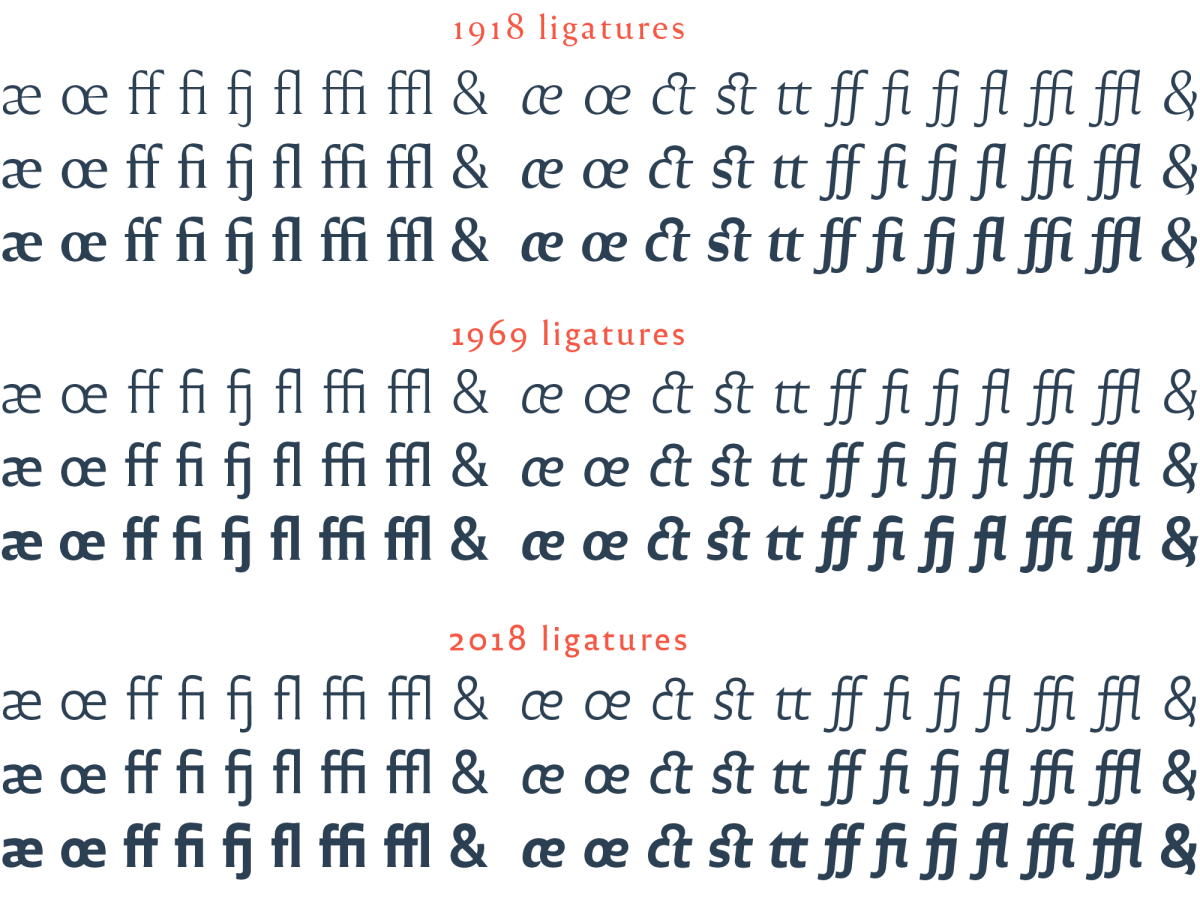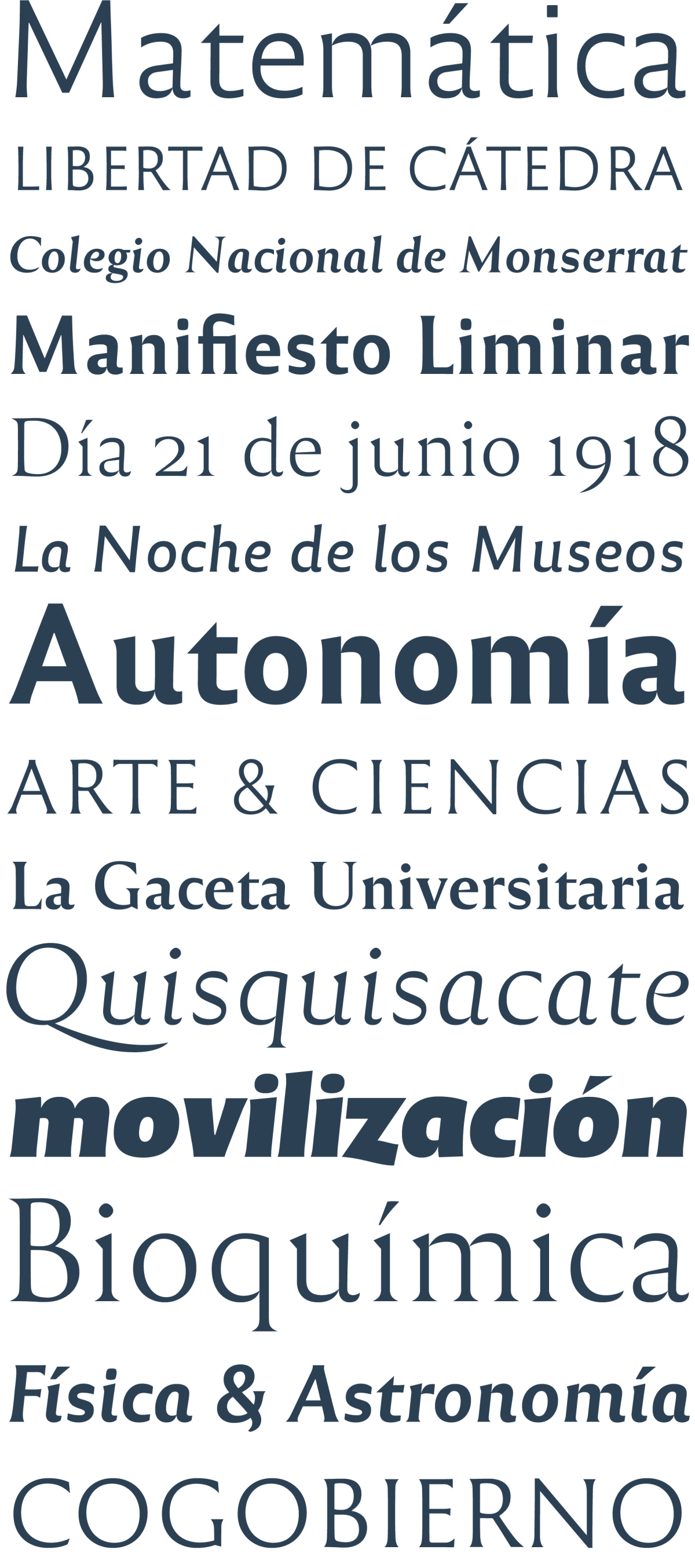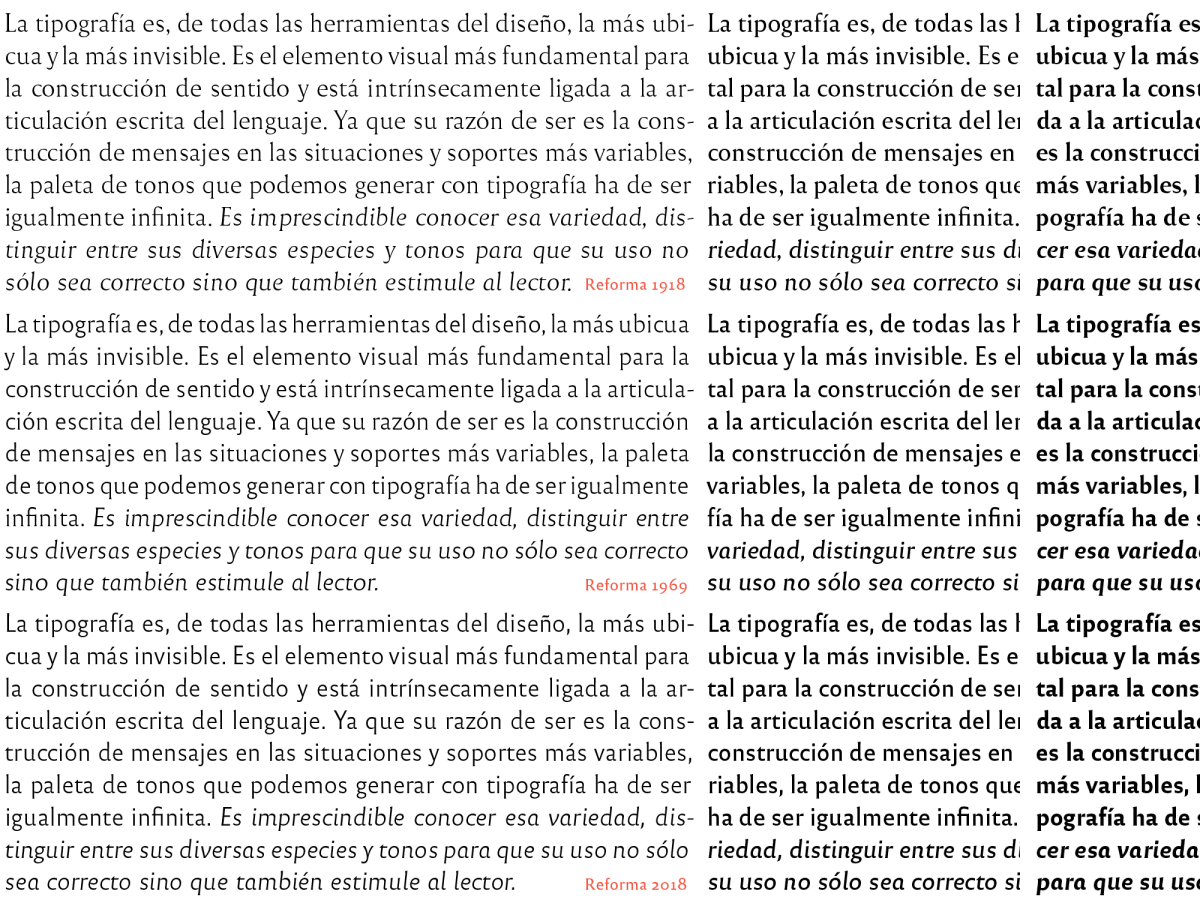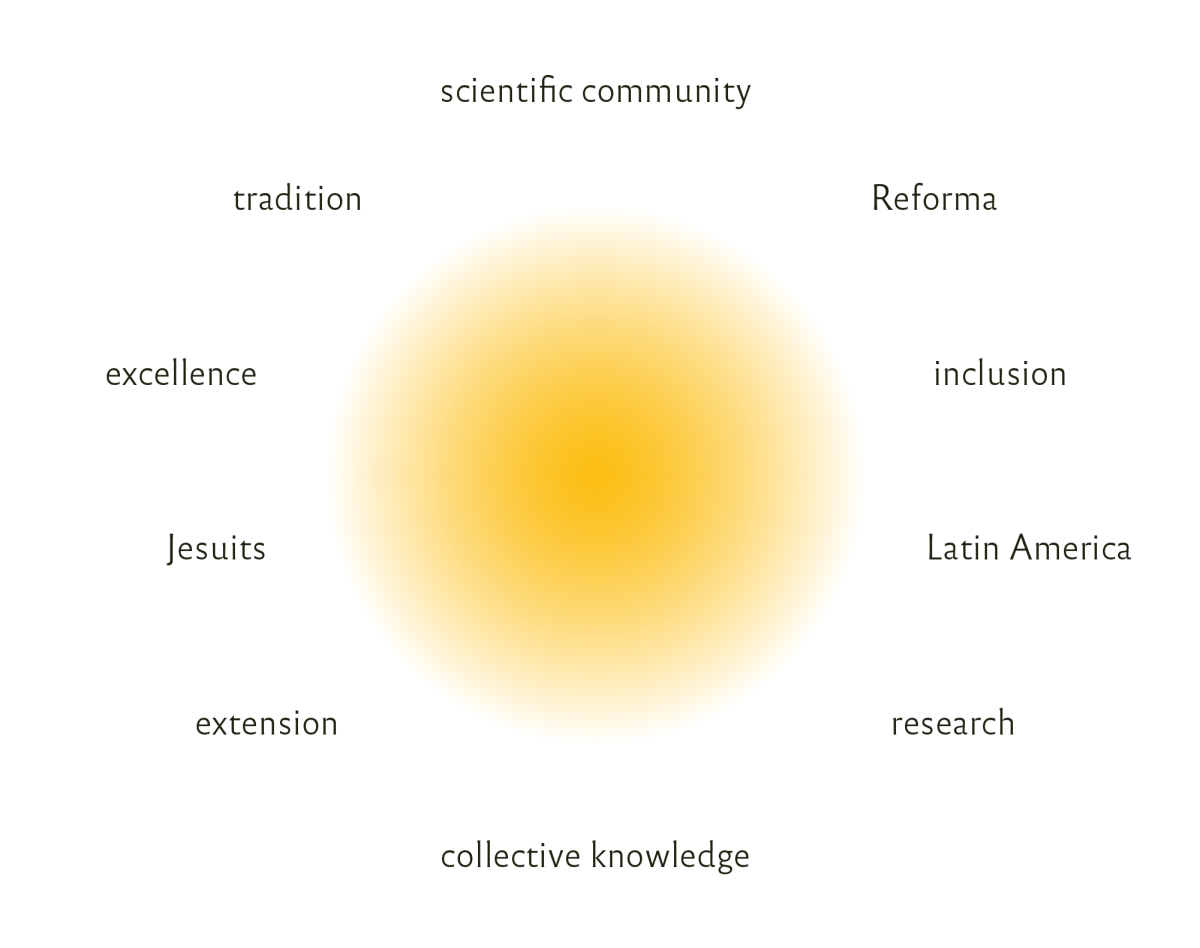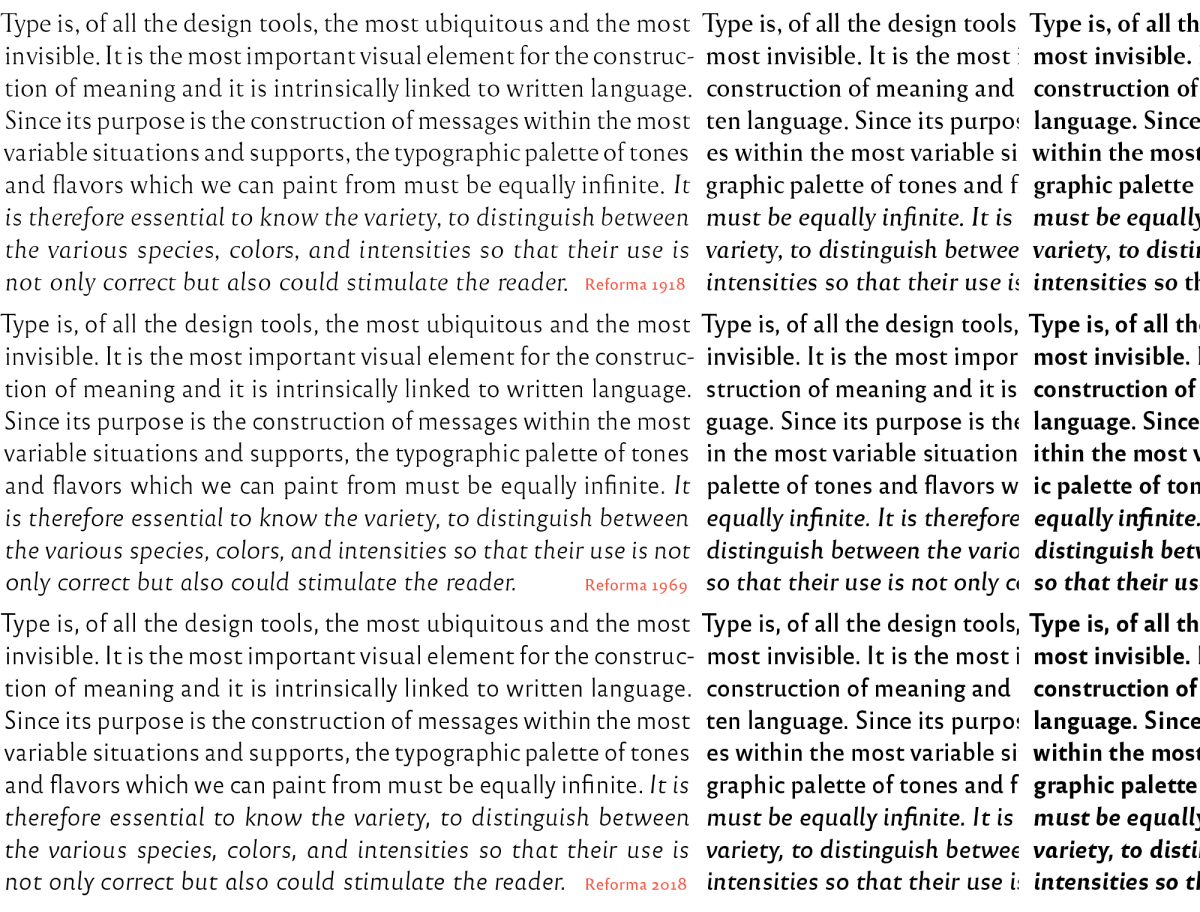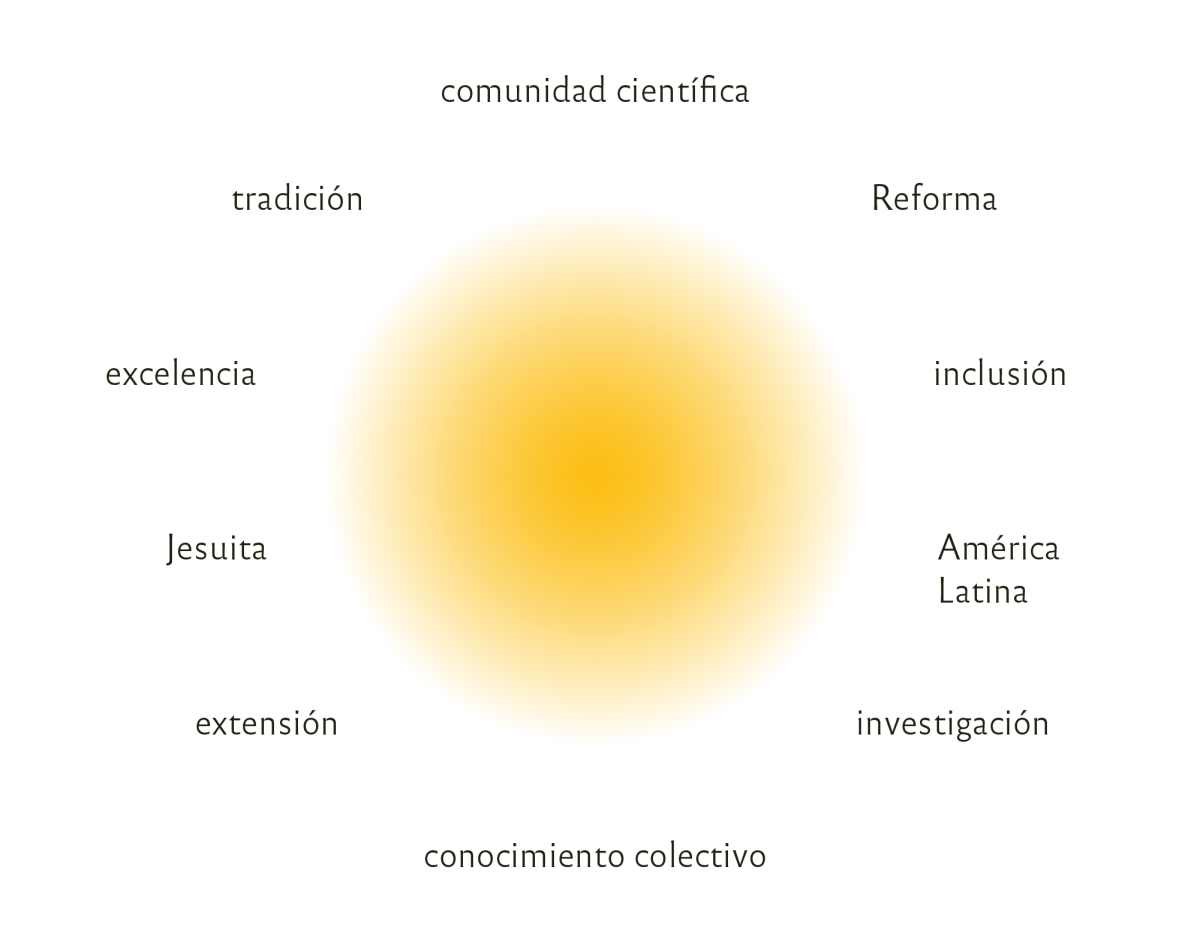
Reforma. A new voice for an institution with deep roots
We are proud of this project: The design of a typeface for the Universidad Nacional de Córdoba in Argentina, an educational institution of more than 400 years, the first in the country and one of the earliest in the continent. As part of the celebration for the hundred years of the University Reform, which occurred in this house in 1918, the UNC commissioned PampaType the design of a typeface to address their multiple communication needs. The resulting design, ‘Reforma’, is a multi-form family with diverse styles. In this article we share a bit of context, all the design process, some of our drawings and production details, and a few insights harvested throughout this 3-year fruitful experience.
Pabellón Argentina, one of the major university buildings in the central campus of the UNC.
Introduction
Emblematic picture from the times of the Reforma, 1918, Córdoba, Argentina.
The Universidad Nacional de Córdoba is an institution with deep roots. At its origin, more than four centuries ago, one finds the Jesuit enthusiasm fighting with the Pope for serious differences in how to interact with the souls of the ‘New continent’. The Jesuits were finally expelled from the Americas by the Spanish king in 1767, but their work remain for some a precedent of peaceful and constructive coexistence. In 1918 rebel students of the UNC gave birth to the Reforma Universitaria, an event that would change the history of higher education throughout the continent. Since then students, teachers and university personnel take part in the government of the house, thus putting an end to the usual authoritarianism.
In 2015 the design department from institutional communication at UNC called us to discuss the possibility of a proprietary typeface for the house. Pretty flattered, we placed hands at work. Three years later the Reforma type family sees the light.
Following the spirit of celebration that has guided this iniciative, as well as the Argentinean traditional policy of open, public, and free education, «sharing» has been the cornerstone of this project. This article is written a few steps before the actual release of the fonts. We hope the project meets public acceptance and as the fonts are widely spread users feel satisfied with them.
A bit of context
Argentineans are proud of their relative intellectual independency and their sense of irreverence, which probably track back to the old Gauchos and their rebel attitude: They could not belong to a sacred land whose natives have been blindly extincted, nor they could embrace the desperate promises offered by hungry settlers. This struggle between memory and forgetness, perhaps inherently human, go throughout all our history and go across our national expectations. We are people of contrast. And because of our recent history we have a strong conscience about our own rights. 1
Public education values
Certain awareness of independence as something you have to struggle for set up a scenario for a slow consolidation of a public, laic, free education policy, as the means to guarantee people’s literacy and their chance for a future. Public education is thus motive for pride in this country. It is the opportunity for all, wealthy or vulnerable, to access higher education, providing them a sense of belonging to a community where justice and equal opportunities excel, where diversity of thoughts is welcome, where one can acquire or consolidate a scale of values. 2
From this perspective we faced the development of a typeface for the Universidad Nacional de Córdoba, trying to convey into the design the nature of these values.
Design commission
The graphic designers of the institutional communication office conform a small department with intense activity, a big output, and a broad influence on the university communication. They are aware of the importance of type as a tool of daily use, and they were enthusiastic agents across the design process of Reforma, facilitating the dialogue with authorities and contributing to the acceptance of the project.
The brief included a few keywords that became the foundations of the project.
The new typeface had to convey four premises wich became the conceptual keywords of the project:
– 1. Plurality
– 2. Intellectual heritage
– 3. Versatility
– 4. Free availability
1. Plurality
The word ‘university’ comes from the Latin voice universus meaning ‘whole, entire’. The acceptance of multiple voices, that is ‘plurality’, is a quintessential value to democracy, and moreover to the life of an educational institution. All the opinions shall be respected and taken into account. We thought this value should be expressed through the articulation of, not a single style, but a family of different styles. This in turn helped us address another design premise: versatility.
Reforma is a multiform typeface that includes diverse voices grouped into three main styles, described in detail below.
Among the several libraries of the UNC [more info at https://goo.gl/L6gATT], there is a special collection library with prominent books and old manuscripts.
2. Intellectual heritage
In order to convey a historic protagonism of four centuries, we suggested that the design should evoke qualities such as dignity, sobriety, and authority. However some people in the UNC feared that this «authority» feeling could not represent the current university life of nowadays, identified with a democratic practice, social knowledge, horizontal exchange, and equal opportunities. Therefore, we set out to make an effort in the interpretation of classic Roman letterforms, sober and dignified, with a sense of true friendliness.
We tried to reach dignified letterforms, inspired in the Roman epigraphic tradition, though we drawed them with delicate, sinuous curves.
We usually see ancient inscriptions unpainted but in fact they did not look like this one at the time. The discovery of ink pigments inside letters suggested researchers not only that letters were painted after they were carved, but also that, before carving, a calligrapher would write the message using brush and ink. Only once the text was perfect then the carver would proceed to engrave. 3
Roman epigraphic artists painted inside the letters, most times in red ‘ignium’. Actually that was the reason for carving the letters. Unlike a simple painted letter, a carved letter protected the ink [the reading] much longer. This sample inscription belongs to the epigraphic collection at the Museé des Augustins, Toulouse, France. Photo: ALC.
3. Versatility
In order to face a wide variety of applications, in the sense of supports (transferring methods, printing technics, screens) as well as tones (style voices, reading atmospheres) we aimed at a multi-style family. Thus Reforma is composed of three subfamilies from classic serif to modern sanserif, all three adaptings finely –we hope– to a wide range of bodies from display to immersive text.
4. Free availability
In line with the policy of national education in Argentina: public, open, and free, the typeface Reforma designed for the UNC shall be freely available as free fonts under a Creative Commons license that allows for any sort of use, private or profesional, except the modification of the original design.
The design of Reforma
From the beginning the idea was to get a skeleton that could embody different muscles modulations. Therefore a wide range of type styles, with or without strokes contrast, with or without serifs, could be reached by basing on the same spirit. That way we could tackle versatility and diversity at the same time.
A series of early pencil sketches trying to figure out styles.
Following the decision towards styles of letterforms that could embody dignity, authority, sobriety, our natural choice favored the Roman epigraphic majuscules, from which our lowercases evolved.
We plunged then into the Roman epigraphic letter to better understand its qualities and nuances. At the end of this article we include some reading references that seem fundamental to us. On one side is the long and important tradition in epigraphic inscriptions and on the other the interpretations that printers, designers and typographers have succesively made of them for printing. The so called «Trajan» majuscules [engraved at the base of the Trajan column in Rome] are probably the best known Roman capitals. However in the span of almost 1500 years of Roman Empire, hundreds of models succeeded. In his fundamental book The Origin of the Serif, father Edward Catich demonstrated that the employ of a flat tipped brush in the hands of Roman calligraphers originated not only the sophisticated modulation quintessence of Roman majuscules calligraphy, but also the characteristic tip endings of strokes designers call serifs.
‘The Origin of the Serif’ by Edward Catich, a true milestone in the history of lettering.
Left image, plaster reproduction of the Trajan inscription made by Edward Catich, showing the importance of painting inside the letters, as opposed to leave them unpainted.
According to Catich these are all the brush strokes that one should master before writing Trajan majuscules.
Balancing personality and serenity
Being both a letter artist and a sculptor, Eric Gill [image below] understood wisely the principles of stone carving. However we thought that our own interpretation of Roman epigraphy had to be less whimsical, avoiding disturbing caprices, and embracing a sense of balance and calm.
An engraved alphabet by Eric Gill: a very personal taste in epigraphic lettering. Note the ‘spicy’ details such as the long vertical serifs [c f r s]; the length and direction of extensions in cursives as well as in figures; the absence of terminal in the descender of y; the low position of the dot in i and j; the diagonal, nervous arm in r. Such details add uniqueness to the whole.
On the other hand, regarding the interpretations of majuscules into print, several reknown typefaces were analysed regarding atmosphere, proportions, structures, modulations, serif/sanserif relations. We naturally worked in our own independent path. Observing the work of other designers helps you immerse yourself in the style, without a doubt, but also forces you to avoid the solutions already found. Renewing the clothes of the alphabet in order to reach a singular spirit, every time, is a particulary hard task. It demands great creativity. And at the same time it must be invisible for the reader too! Paradoxes of this craft.
Some of the serif and sans serif typefaces we consulted at the beginning of our research.
As we mentioned, some people in the UNC feared that a sense of authority could be inappropiate when associated with an institution of democratic practice. Thus we suggested to interpret the Roman epigraphic tradition with a sense of delicacy and grace. Letterforms should look friendly. We then started to draw distinctive characters, giving them features capable of further combination within the system.
Four distinct type designs were drawn as masters, they were made compatible, balancing their differences and empathies, thus they could look harmonious without loosing their individual character. All this is a tricky task. The designer has to carefully decide on the quality of each curve in every lettershape, its overall visual coherence within each type style, and also sort out how inner and outer spaces interrelate in all directions.
As modulation and weight are two different factors that influence a font style independently, one shall reach the design in a higher level of behavior: the dimension of rhythm, where forms and counterforms need to dialogue harmoniously. That way it all feels natural when these fonts are combined together. And also, a fundamental challenge in this project was to confere minuscules the same epigraphic spirit that is natural to Roman majuscules, without betraying its own calligraphic sense.
Interpolation and interpretation
Once verified in a variety of test words that all rhythms respond well to the original design idea, the mathematical method of interpolation can be used to find intermediate weights between the lightest and the boldest, as well as explore possible intermediate designs. In the case of Reforma, it was desirable to find a third subfamily, a hybrid in the system, which was Reforma 1969. An intermediate design as a result of interpolation means that many details must be reshaped later to achieve visual coherence. So the interpolation itself is just a starting point. A process of interpretation of several details and elements allows to gain in addition to visual coherence, also independence and personality. On the other hand, following the same design method we created the characters of the cursive companion: that is, four other master drawings of each glyph, then interpolating and interpreting and as a result we had the nine companion cursive fonts.
Also an important design detail for the sake of readability (and beauty) is the rhythm contrast between the romans and the italics. We wanted that contrast to be unobstrusive and gentle, so we gave the italics of Reforma a similar rhythm to that of the roman.
All fonts were thus grouped into three subfamilies, from classic (complete serif, old style modulation) to modern (sanserif, monoline modulation) with an intermediate hybrid style that combines the qualities of the other two (subtle modulation and flare serifs). The choice of numbers in the name (1918, 1969, 2018), suggested by the graphic design team of the UNC, responds to years that are significant in the history of both the university and the nation. 1918 is the year of the University Reform that happened in the UNC. In 1969 the Cordobazo, a civil uprising of students and workers against the military government, took place in the city of Córdoba. And 2018 is the centennial year of the Reforma.
Characters are usually designed considering their behaviour within words and strings of texts. This project was more complex than usual: For each character we had to design 9 different glyphs [3 styles declined in 3 weights]. That is, for the roman. The cursive needed its 9 styles as well. And we made a display set too, the UltraNegra. Building the glyphs using component parts throughout helps a lot.
Conceived as a slightly more informal style, the Reforma UltraNegra set is aimed at impactful headings.
An ultra black companion set, roman & cursive, was created as a titling companion, to gain impact at headings. It was decided to give it a more relaxed voice, as a counterpart to the rest of Reforma fonts which are more sober and formal. Thus this UltraNegra set was built following its own rules, still consistent with the rest of the system, but prioritizing impact and tone singularity.
Global stylistic coherence
Integrating the two alphabets, uppercase and lowercase, the numbers to the letters, the punctuation and all, and then the different weights of each group, so that all fonts work harmonically, in big sizes and in long reading, is a pretty complex task. One should promote the best of each style without it becoming a circus, and at the same time one should avoid excessive neutralization that could make the system too anodyne or boring. We believe that Reforma reaches a good result in our attempt to balance personality and reading, tradition and novelty.
Thus the family has a series of interrelated styles to be used at diverse contexts.
Designed for text. With the exception of UltraNegra (intended for titling), the three weights (Blanca, Gris, Negra) in both styles, roman and cursive, were designed for comfortable immersive reading. That is why the Negra weight is not so heavy, for the amplitude of its countershapes can ensure readability.
Typographic characteristics
Characters repertoires in Reforma are not particularly extensive (as they usually are within our retail typefaces), they include basic Latin. However, we think the inclusive nature of such educational institution requires an extensive language coverage, which will be tackled through future upgrades.
On the other hand we included in Reforma all the features that are considered basic needs in nowadays’ typographic practice, such as figures of different styles, alternate glyphs, standard and special ligatures, etc.
Reforma includes lining figures [to be used only in combination with uppercases] as well as old style figures [to be used in text], plus their respective tabular versions [in order to build tables].
The UltraNegra subfamily [to be used in display context] has an extra set of figures for a relaxed or fancy tone.
Thinking of headings and display settings, we also designed a set of ligatured caps. The idea is to extend these ligatures with more combinations and accents in future upgrades of Reforma.
A family of 20 styles means that when you make a new glyph, it must be designed for each of the 20 styles. Without a doubt the formal coherence in typography is a lot of work. Due to the ‘graphic’ potential of uppercase ligatures, the UNC decided to keep them for their exclusive use. The same with UltraNegra. These elements were not included in the released sources.
After three years of work in this project (2015-2018) we made 20 font styles work harmoniously in real contexts. Of course additional styles in the system would help even more at enhancing its sense of diversity, by amplifying the palette of fonts choices to users. What we have completed so far is what the project has allowed us to do.
Testing and refining
Progressive, endlessly testing and refining stages are the ideal method to achieve quality where an iteration process with the users is possible. We can actually see the fonts used in real pieces, printed and on screen, long before their final release. That helps us to identify a big deal of details such as wide or narrow letter widths, missing kerning pairs, hinting troubles 4, and other tiny details that can be fixed in the next Beta upgrade, and so forth until the final release.
In order to share information, decisions, beta files, with the UNC design team, we set up a private blog. In the end this turned out to be a nice travel log of the whole project, so the UNC decided they will make it public in the near future.
Official launch
In June 2017 we gave the key talk at the official presentation with the presence of the university president and other authorities. The protocol also included the inauguration of an exhibition on typography and type design (entirely conceived, written, and designed by PampaType). This was a significant effort from our foundry to rise interest within the university community and give the project a broader visibility.
A significant exhibition on type design, entirely conceived and produced by our foundry team, took place at the Pabellón Argentina, a major building of the university. It provided the perfect frame for the official introduction of the project.
This has been an important project for us and we are satisfied with the results. We would like to express our gratitude to Gustavo Mathieu, Deputy Secretary of Institutional Communication, and to the design team at the UNC: Juan Pablo Bellini, Sergio Cuenca, and Eloísa Oliva, to facilitate the dialogue, the feedbacks, and their permanent enthusiasm.
Download Reforma
Further reading
Donald Anderson. Calligraphy. The Art of Written Forms, Dover, NY 1969.
Edward Catich. The origin of the serif – brush writing and Roman letters, Catfish Press, Iowa, 1968 (Second ed. 1991).
Matthew Carter. “Theories of Letterform Construction. Part 1”, Printing History Society Bulletin, vol. 13/14, 1991/2, p. 3-16.
Giovanni Mardersteig. “Leon Battista Alberti e la rinascita del carattere lapidario romano nel Quatrocento”, Italia Medioevale e umanistica, 2, 1959.
James Mosley. “Giovan Francesco Cresci and the Baroque Letter in Rome”, Typography Papers 6, 2005, p. 115-155.
Paul Shaw (editor). The Eternal Letter. Two Millennia of the Classical Roman Capital (several authors), MIT Press, USA 2015.
Geofroy Tory. Champfleury (où Art et Science de la Vraie Proportion des Lettres), Paris 1529. Facsimilar edition from the Bibliothèque de l’Image, Paris 1998.
1. The military dictatorship settled from 1976 to 1983 left about thirty thousand missing people and a deep abyss that still divides the whole society about how to run the destinies of the nation. Successive intellectual waves and periods of wealth from 1880s up to 1950s helped to build a national aspiration for a high place in the world concert. This has been systematically obstructed by the «international order» and the banks’ plans for keeping the developing countries dominated under their perpetual policy of credit & debt, which finds fertile ground in the corporations and in the ruling classes of the country. Since colonial times the role of Argentina was determined as a provider of food — specially grains and cow meat. Governments that have tried to change this had to face aggressive counter propaganda in worldwide media and eventually destabilizations and rapid endings. Nevertheless, all internal and external efforts to keep wounds open and thereby ensure division among people, remain an effective strategy. As Imperial Romans would put it, Dividet et imperat. ↩
2. This is the kind of services that public education aim to offer in our societies. It is more than just following courses to become a professional and earn your money in life. It is a place where learning and teaching are exercized with freedom of mind and intellectual independence, where students’ minds can flourish far from private agendas and corporate interests, where individuals can reach higher states of mind and share a generous human experience. ↩
3. This sound hipothesis was introduced brilliantly by Edward Catich, though some letters historians find it more believable that for instance serifs originated in the use of chisels. ↩
4. Hinting is the set of instructions given to fonts to make them render better in small sizes under low-res conditions ↩